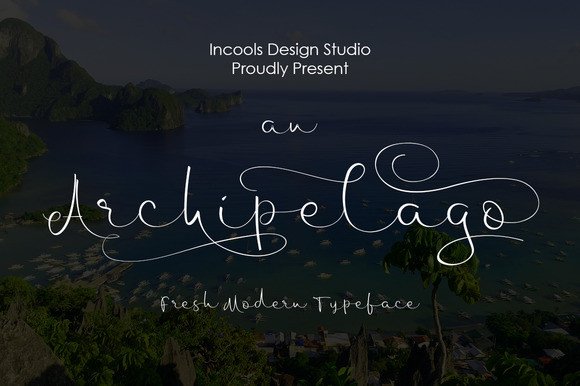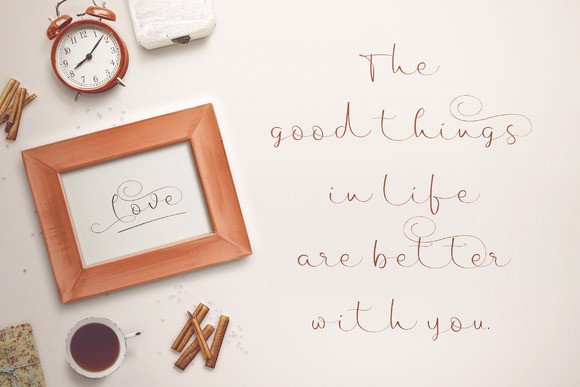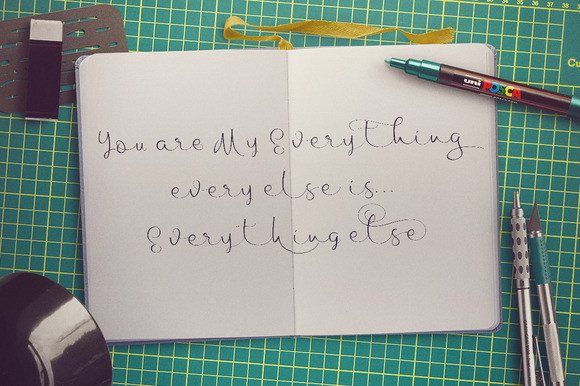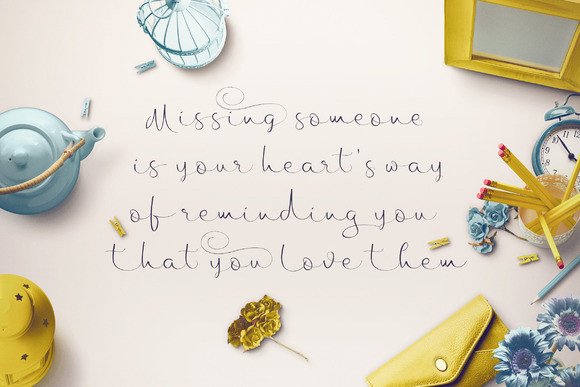
Archipelago Font
About Archipelago Font
Archipelago is a stunning calligraphy font with a delicate appeal. This flourished font is a beautiful way to add some style and grace to your display designs.